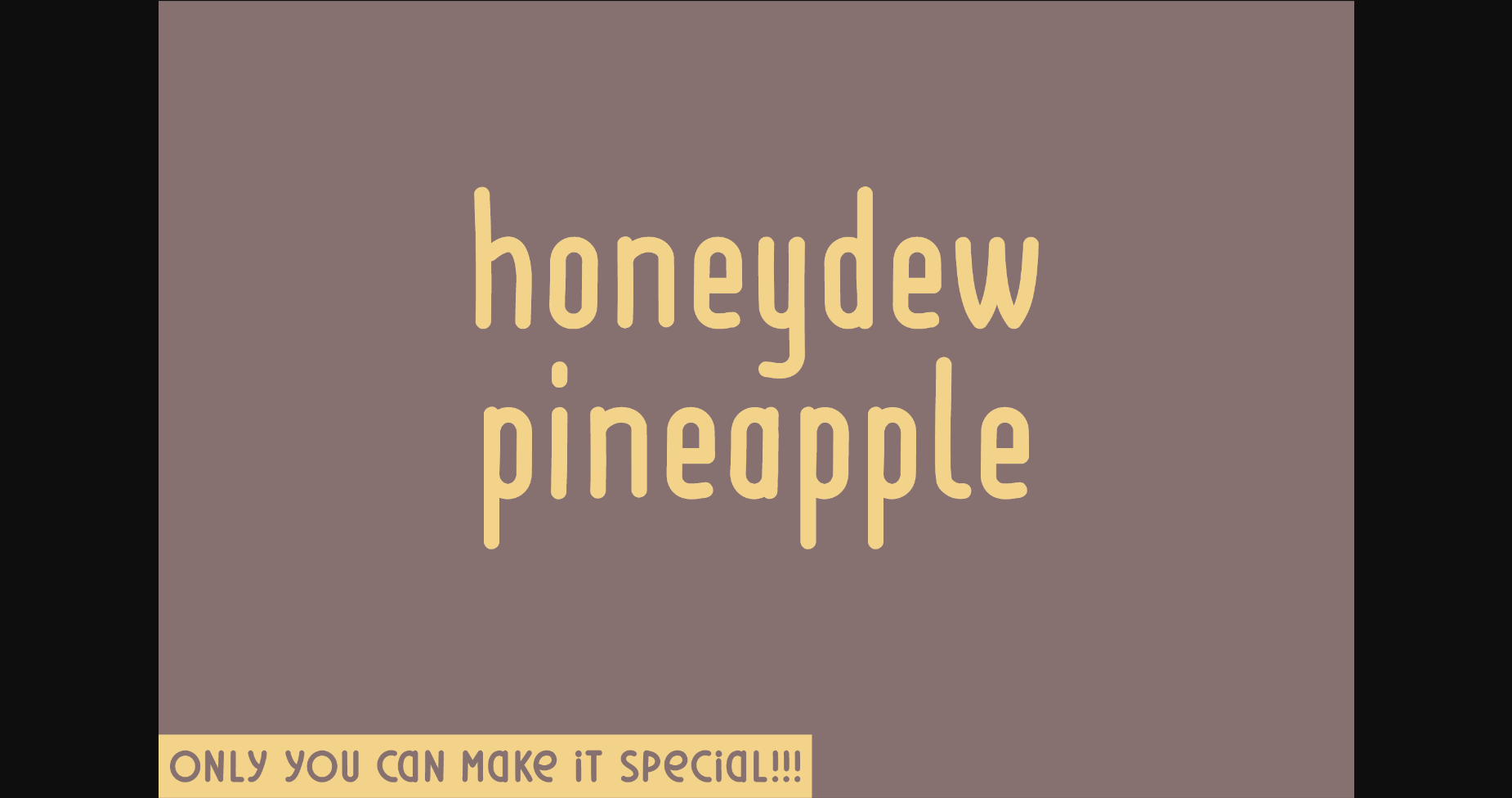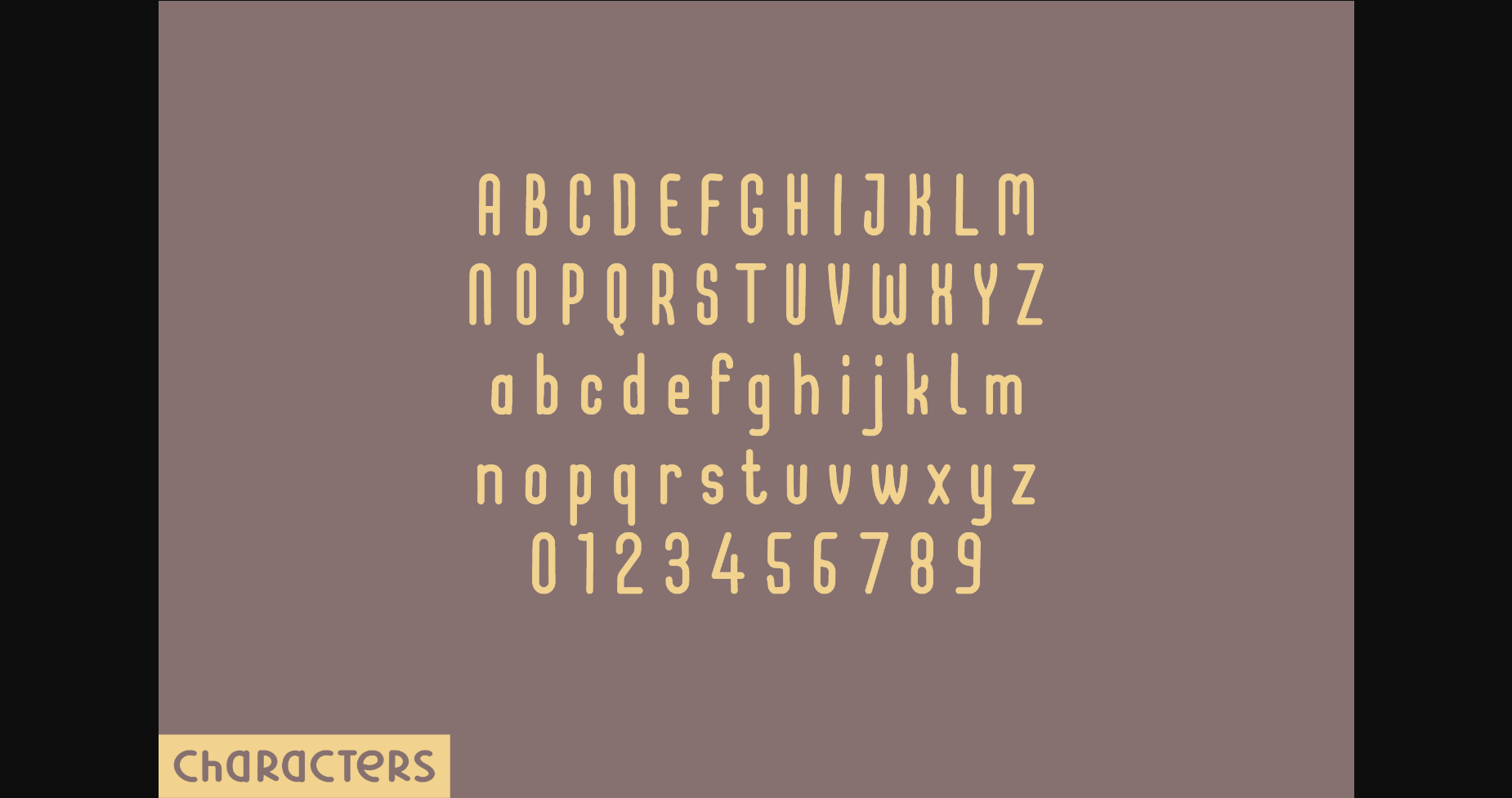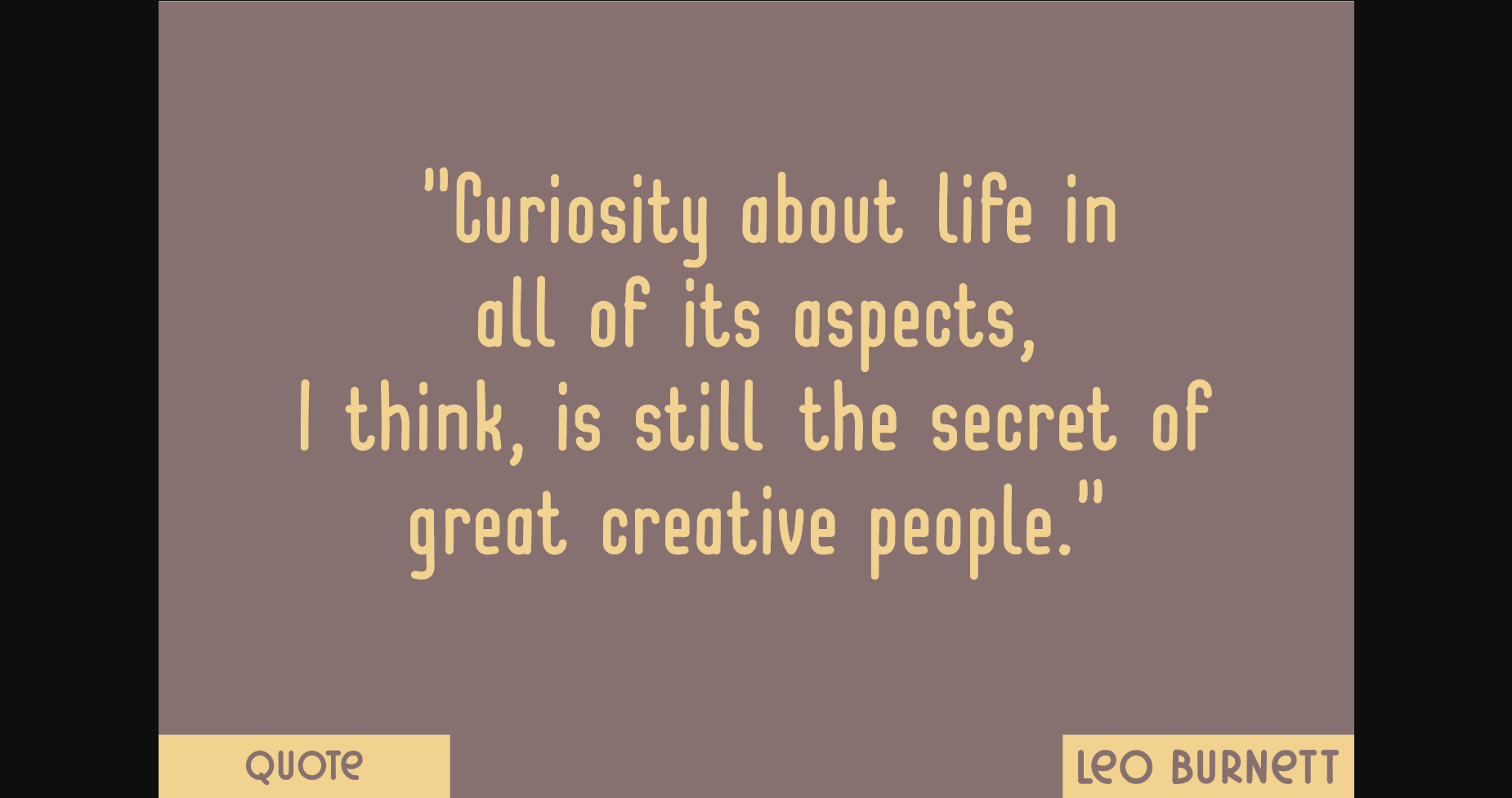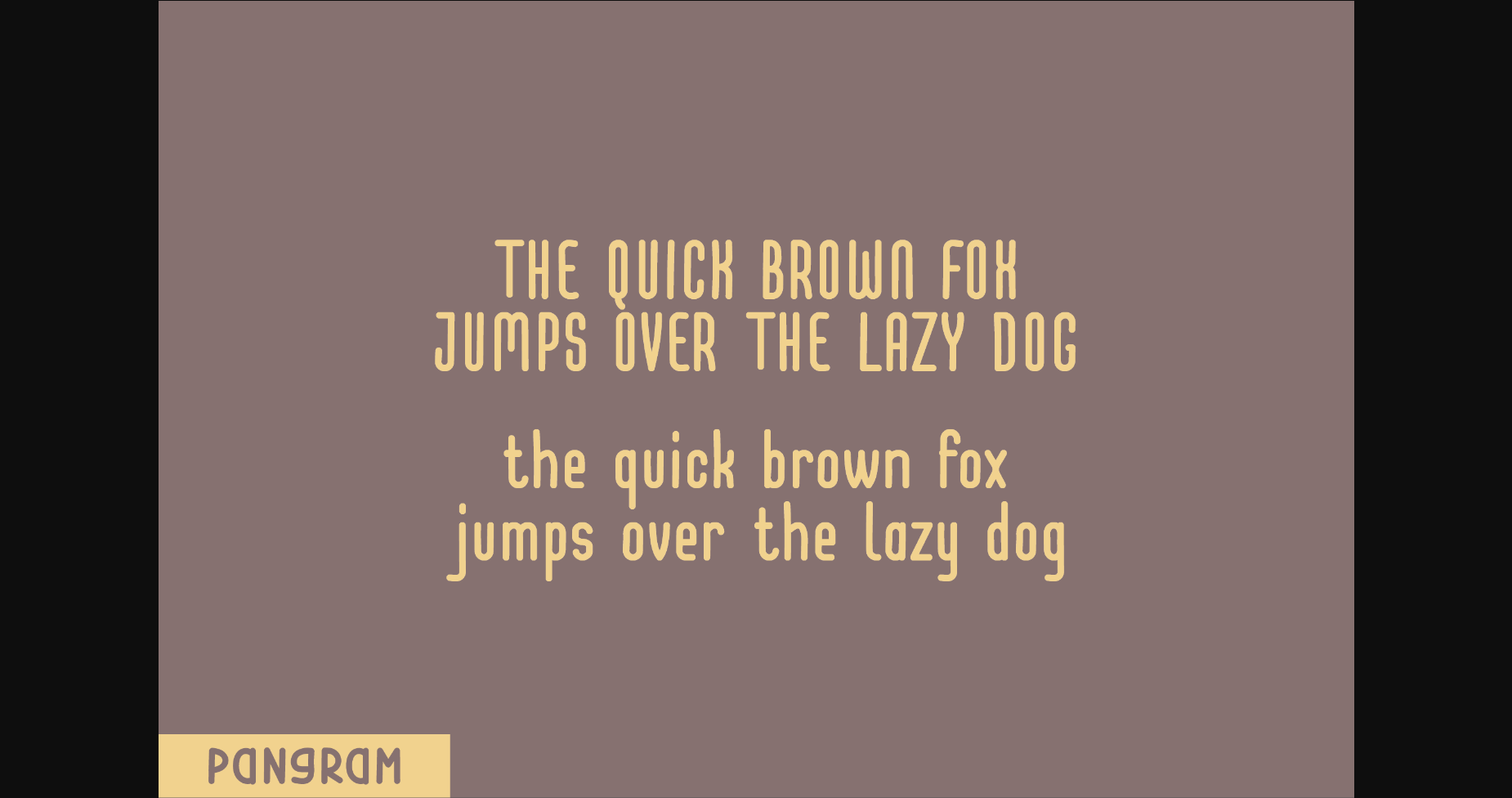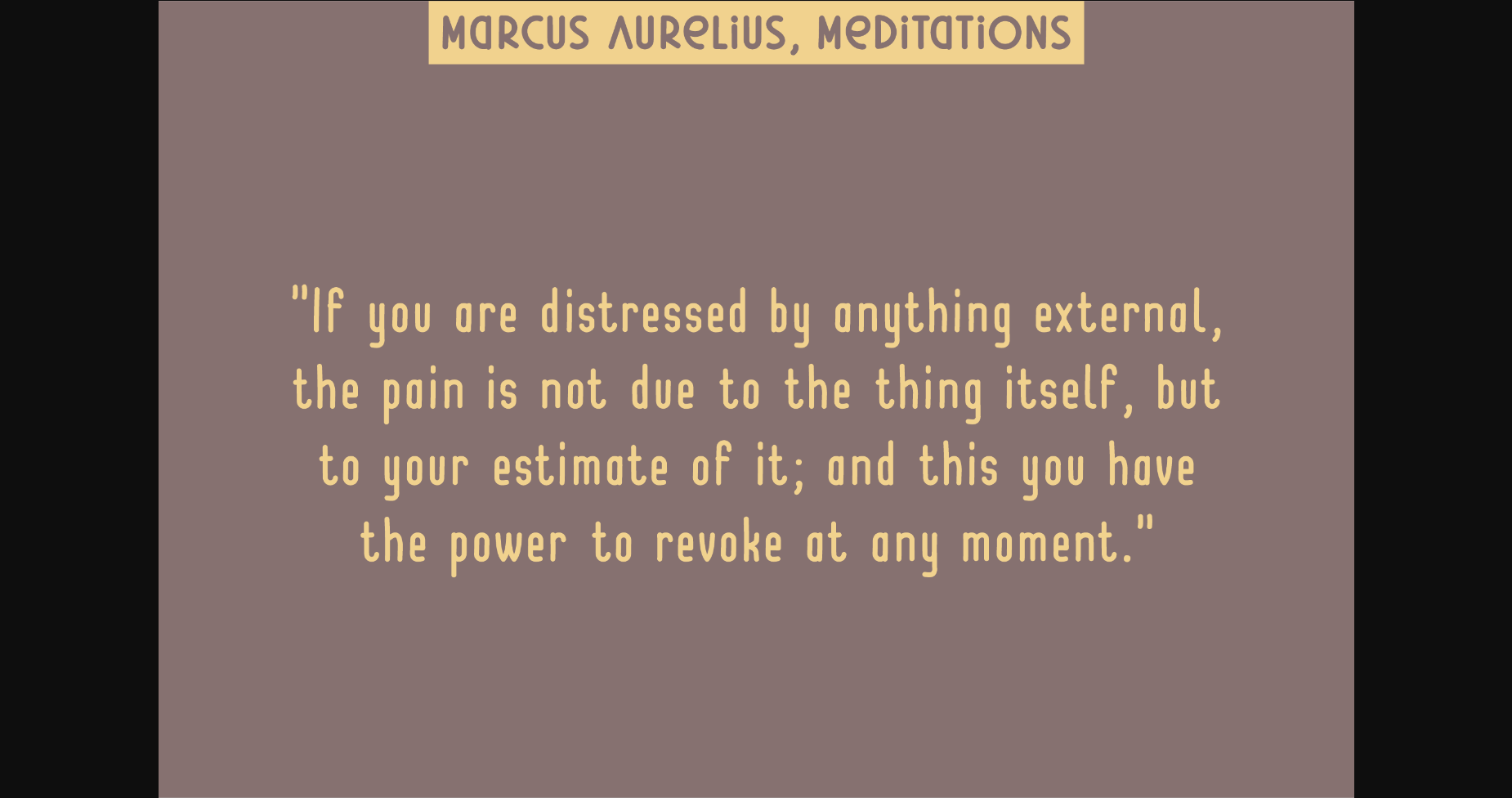
Sans Serif Fonts Honeydew Pineapple Font 0 258 FacebookTwitterPinterestWhatsApp 1 of 7 ... Honeydew Pineapple Font Poster 2... Honeydew Pineapple Font Poster 3... Honeydew Pineapple Font Poster 4... Honeydew Pineapple Font Poster 5... Honeydew Pineapple Font Poster 6... Honeydew Pineapple Font Poster 7... About Honeydew Pineapple Font Honeydew Pineapple feels playfully nostalgic and delivers an incredible vintage aesthetic. Use this serif font to add that special retro touch to any design idea you can think of! DOWNLOAD NOW